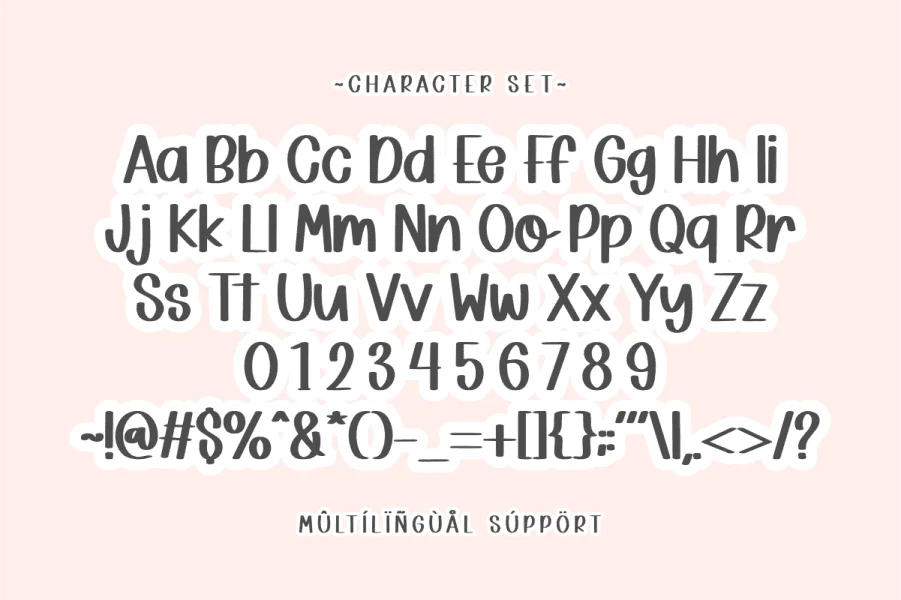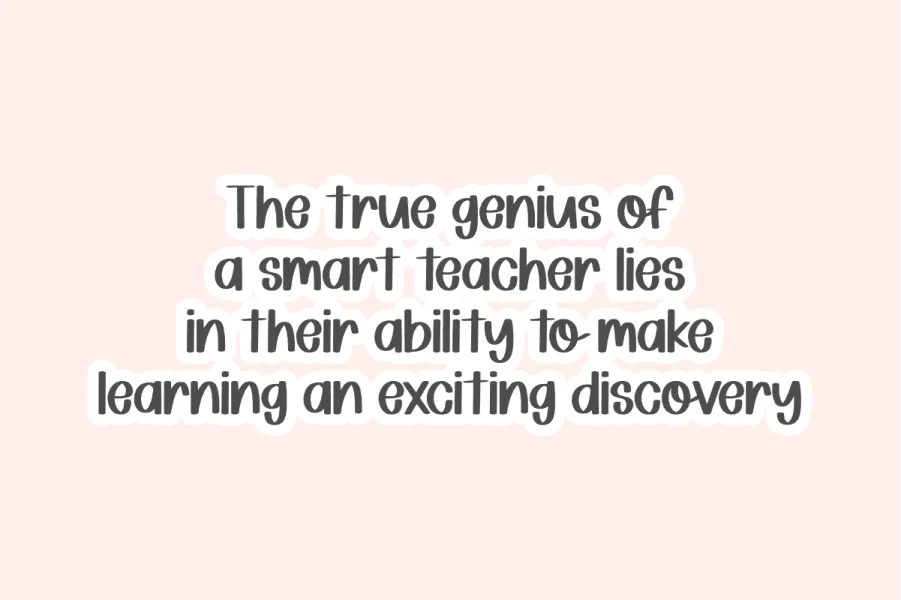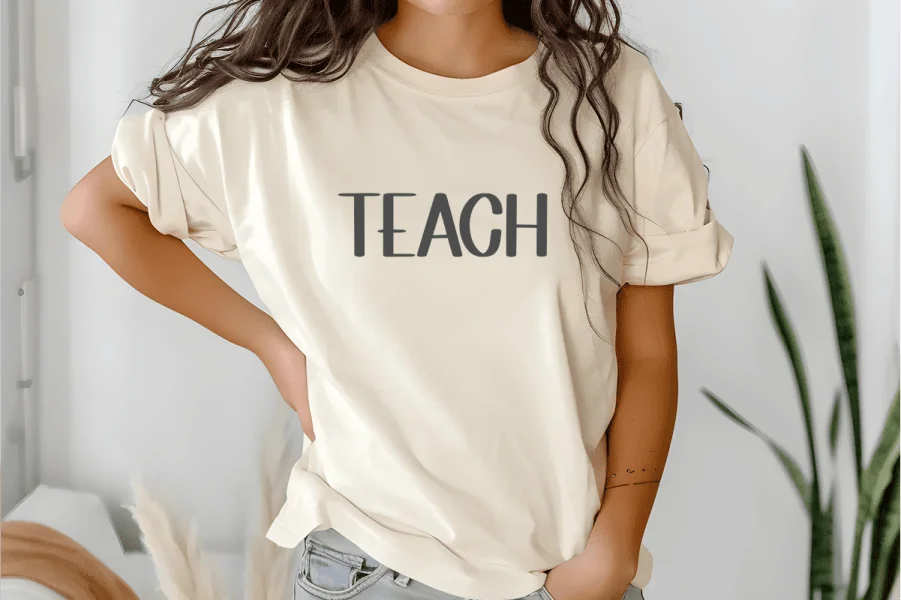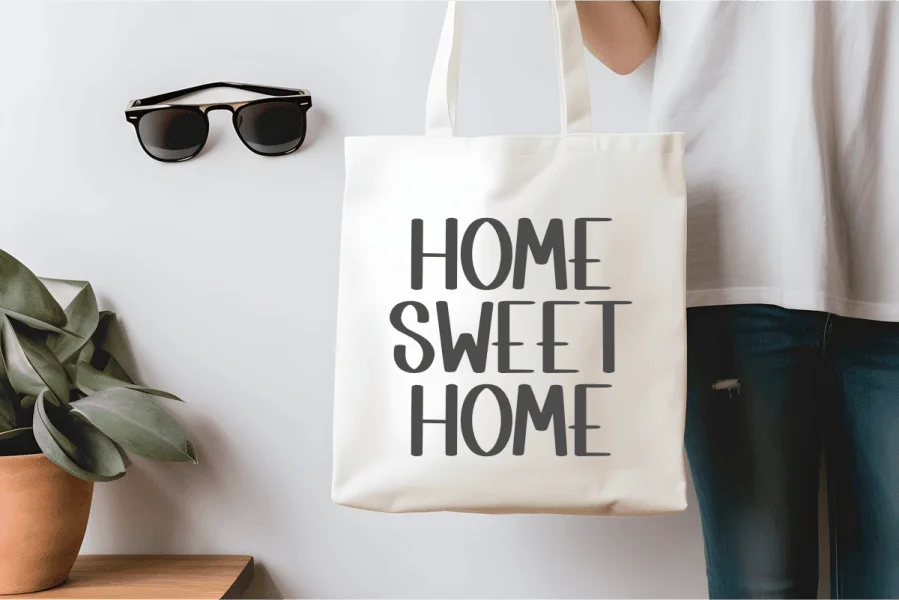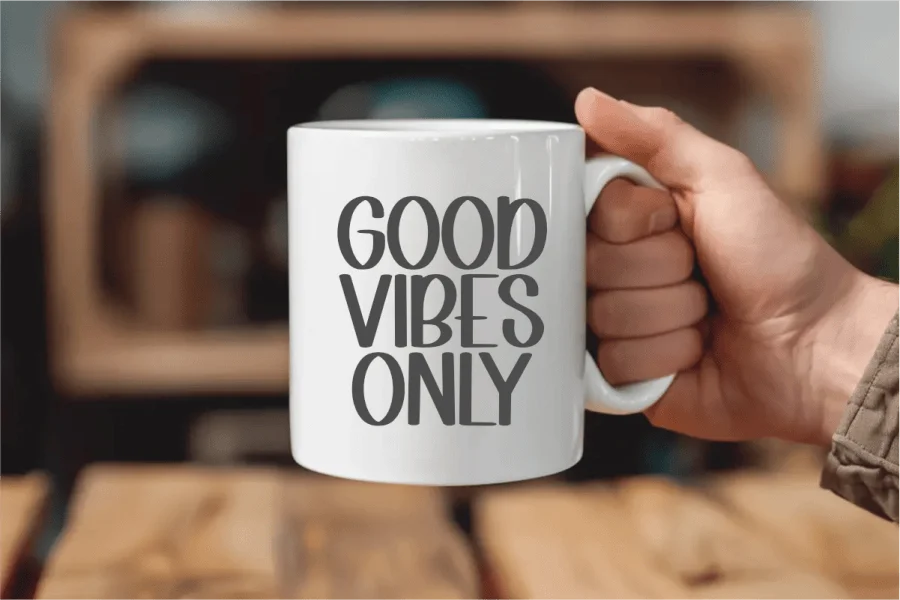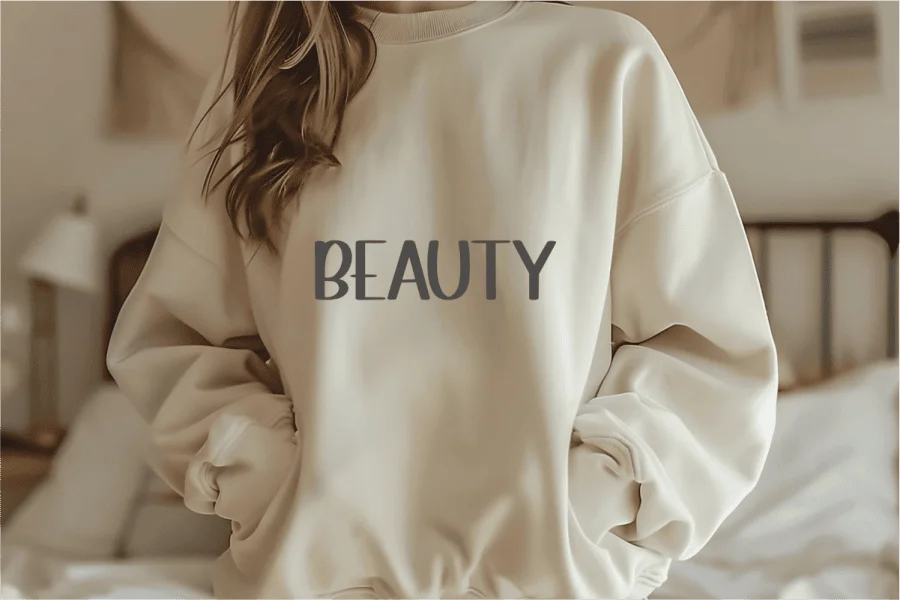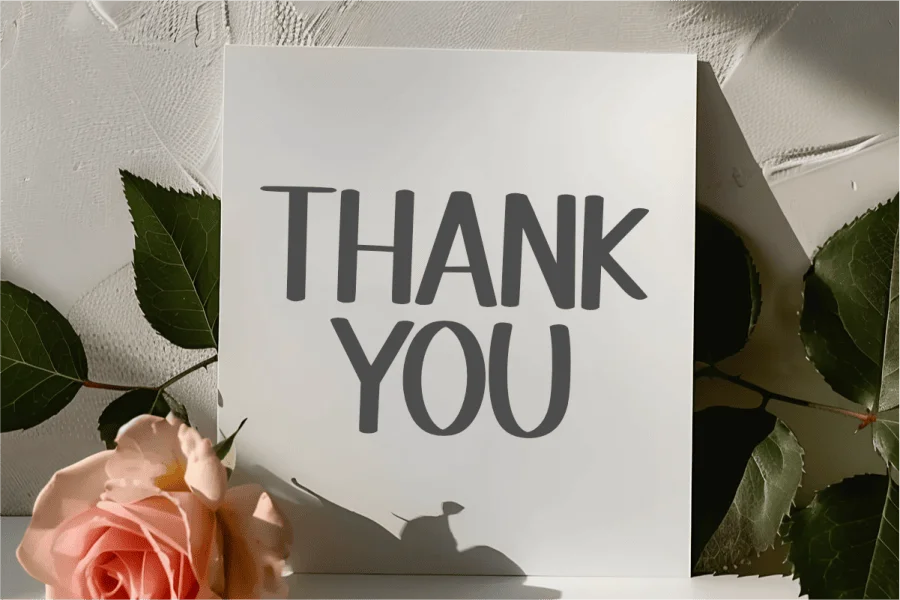
Smart Teacher is an adorable and robust cute display font that brings a friendly and engaging charm to any design. Its thick, rounded letterforms are clear, legible, and incredibly impactful, making it perfect for conveying messages with warmth and confidence. This versatile typeface is designed to be highly accessible, featuring PUA encoding for easy access to all glyphs, and is optimized for digital crafting. Smart Teacher is perfect for adding a touch of educational fun and clear messaging to a wide range of creative projects. Imagine Smart Teacher enhancing vibrant stickers, engaging planner layouts for educators, bold t-shirt designs for school events, informative labels, playful posters, personalized tumblers for teachers, and a plethora of other unique crafts. Its clean and friendly style makes it exceptionally well-suited for products targeting end-users who enjoy crafting with Cricut for precise cuts, sublimation for high-quality merchandise, laser cutting for bold details, and for producing appealing stickers, planner elements, and POD (Print on Demand) friendly apparel. Smart Teacher's inviting and legible presence will ensure your creations stand out, offering a blend of playful aesthetics and uncompromising clarity for any project, especially those related to education and learning.